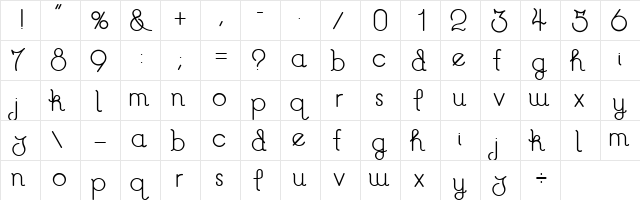
Zebra Regular
| Designer | yong // oneonezero |
Design Context for Zebra Typeface
Zebra takes a measured approach to typography — its balanced proportions and neutral character make it a reliable workhorse for both digital and print work.